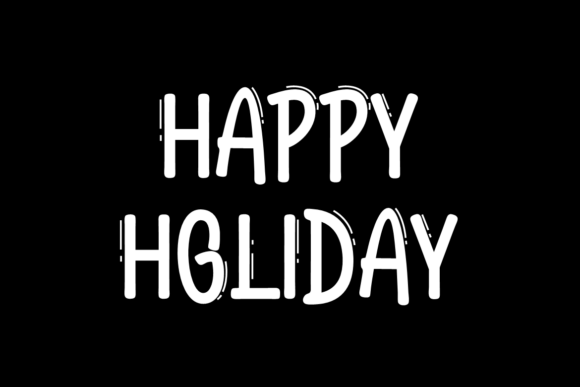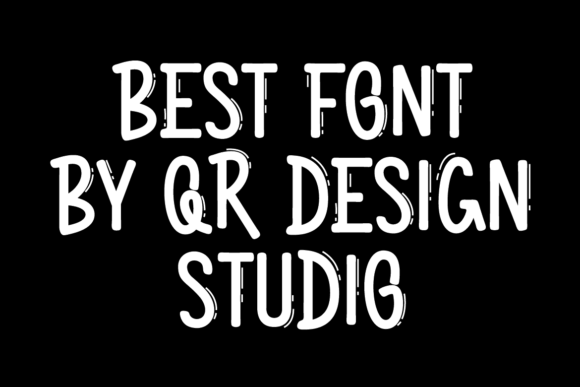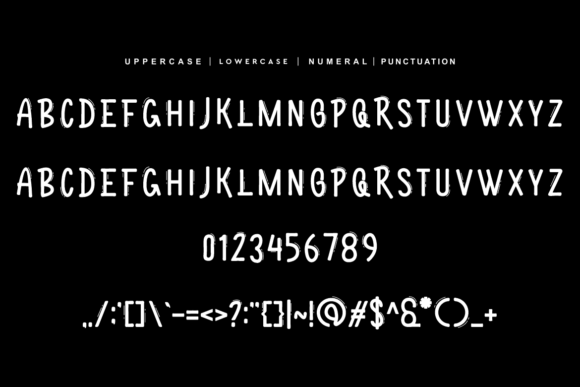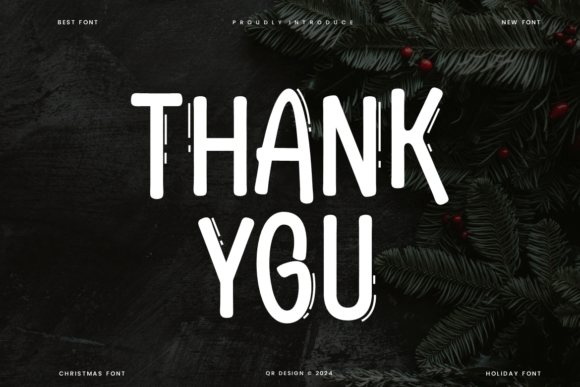
Unlock the Magic of Holiday Season Design
As the holiday season approaches, the excitement builds up. The twinkling lights, the sound of festive music, and the joyous atmosphere all come together to create an unforgettable experience. But, have you ever stopped to think about the fonts that bring this magic to life? For designers, finding the perfect font can be a challenge, but what if I told you there’s a font that can make your designs sparkle like the stars on a clear winter night?
Introducing the Holiday Christad Font, a beautiful and timeless handwritten font that’s perfect for creating eye-catching logos, branding, and quotes. With its unique and beautiful touch, every letter comes alive, making your design truly special. Whether you’re designing for a holiday campaign or creating a festive logo, the Holiday Christad Font is a valuable addition to your design arsenal.
Holiday Christad Font Key Features
- Font Family: Holiday Christad Font is a sans-serif font family designed for festive and holiday-themed applications.
- Character Set: Supports a wide range of languages, including Latin, Cyrillic, and Greek alphabets, with over 1,000 glyphs.
- Unique Characteristics: Features a bold, playful design with intricate details and ornaments, making it ideal for holiday-themed materials, such as greeting cards, invitations, and decorations.
Holiday Christad Font Review
As a designer, I was excited to try out the Holiday Christad font, especially with its festive name. Here’s my honest review.
- The font has a great balance of modern and traditional elements, making it suitable for a variety of holiday-themed designs.
- The characters are well-designed and visually appealing, with clean lines and a clear font structure.
- The font is highly legible, even at smaller font sizes, making it perfect for print materials like cards, invitations, and posters.
- The font lacks a unique personality and can feel somewhat generic, especially when compared to other festive fonts.
- The font family is relatively small, with only a few weights and styles available, which can limit its versatility.
- The font may not be the best choice for digital designs, as it can be difficult to read on screens and may not display well at various resolutions.
Overall, the Holiday Christad font is a solid choice for holiday-themed designs, but it may not stand out from the crowd. While it’s well-designed and legible, it lacks a unique personality and may not be the best choice for every project.
Use the Holiday Christad Font to add a festive touch to your designs. Experiment with different font sizes, colors, and styles to create a unique look.
The Holiday Christad Font is perfect for:
- Christmas and New Year’s Eve invitations and cards.
- Holiday-themed social media posts and graphics.
- Winter and holiday-themed marketing materials.